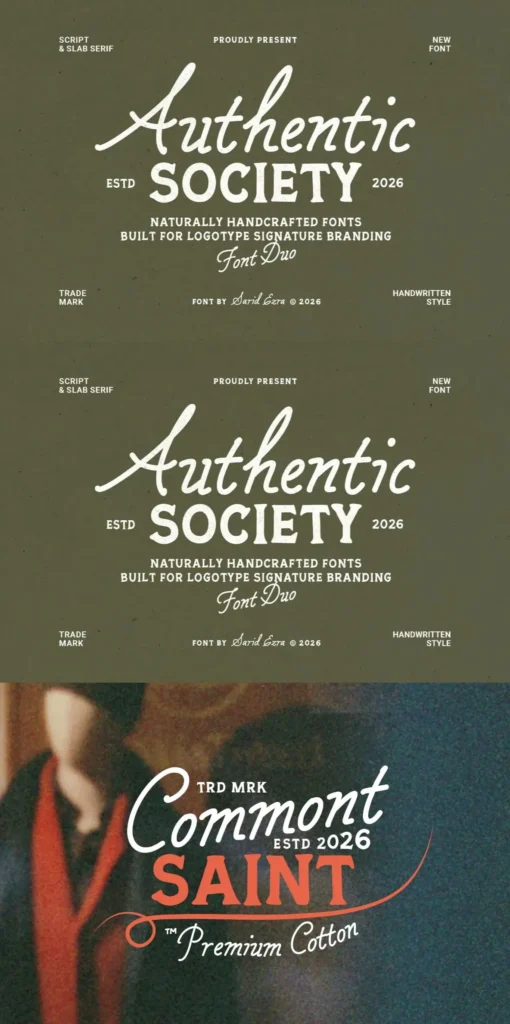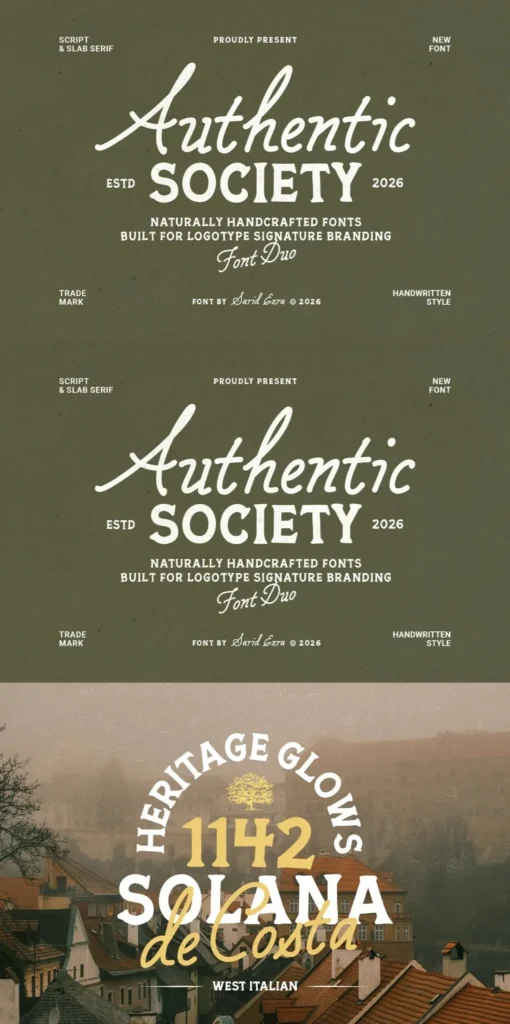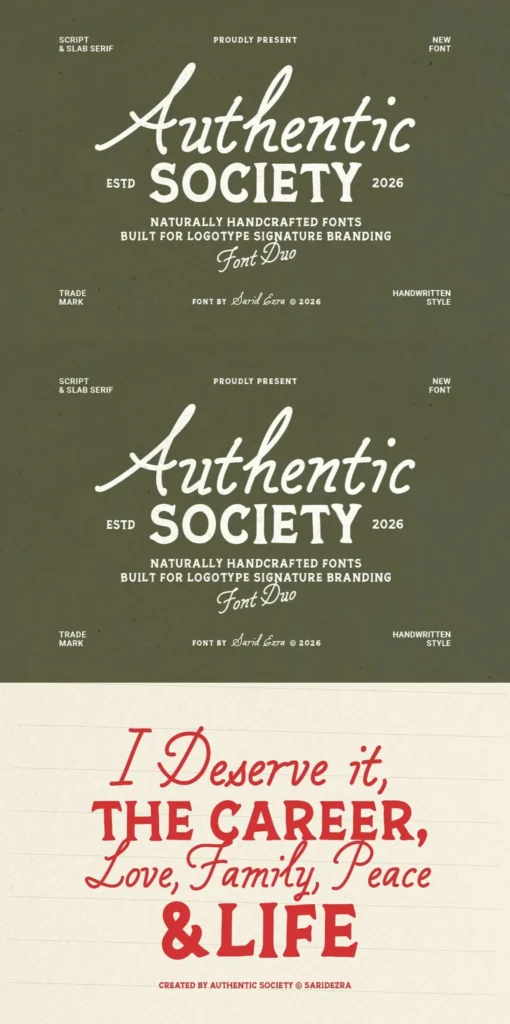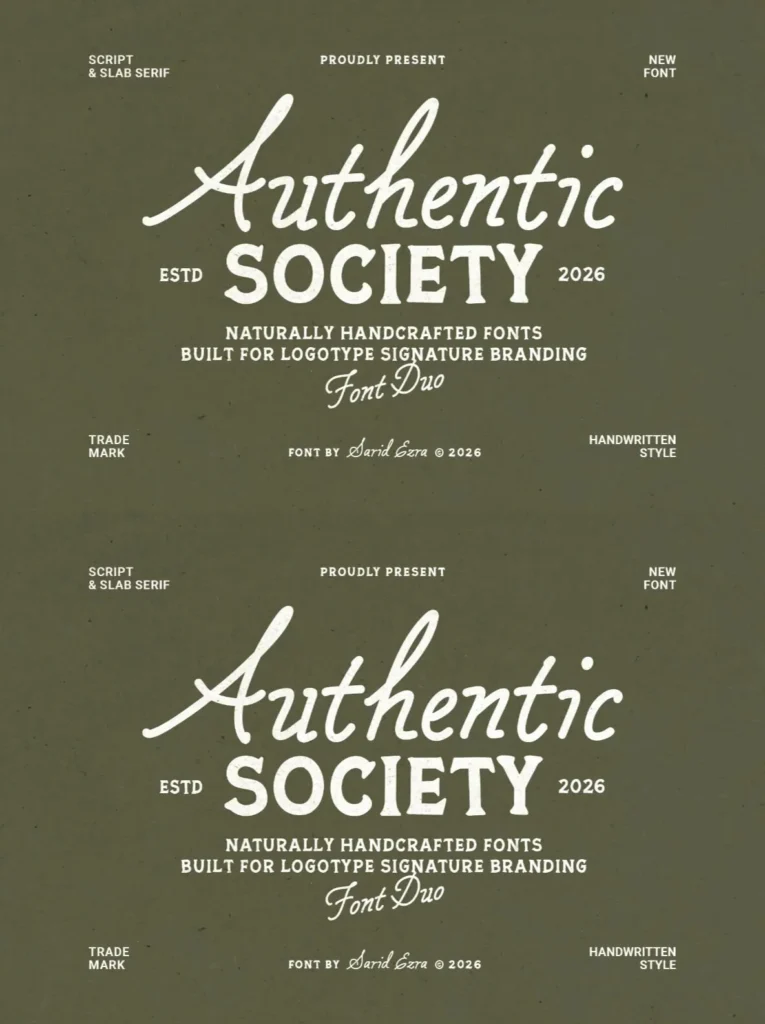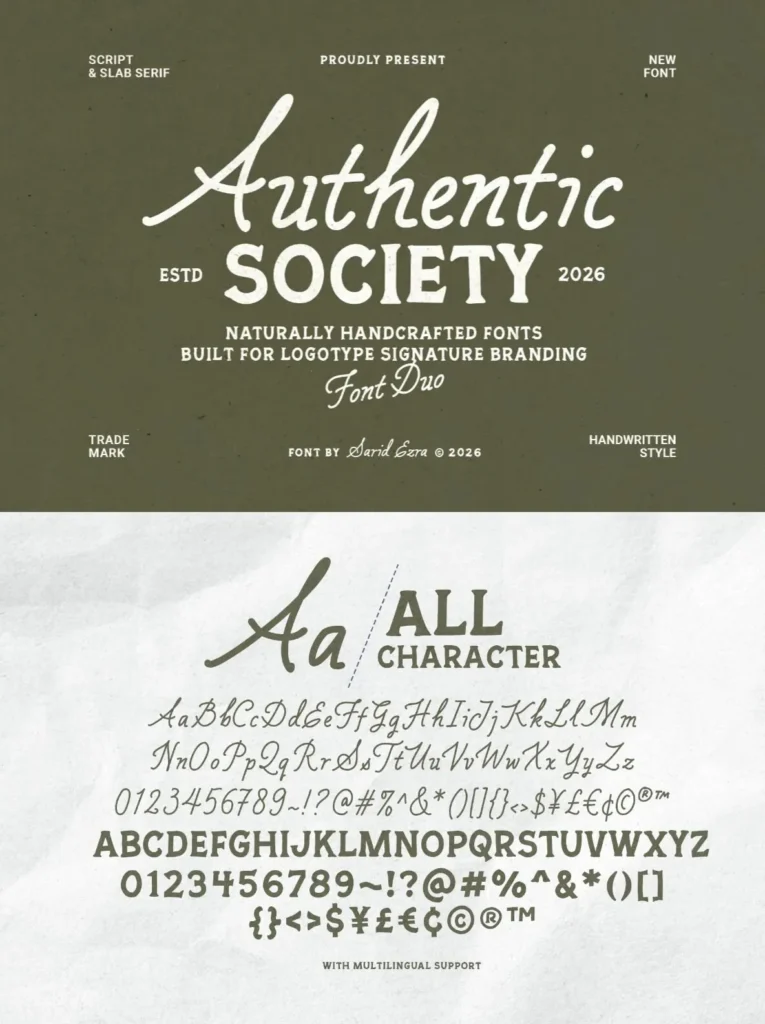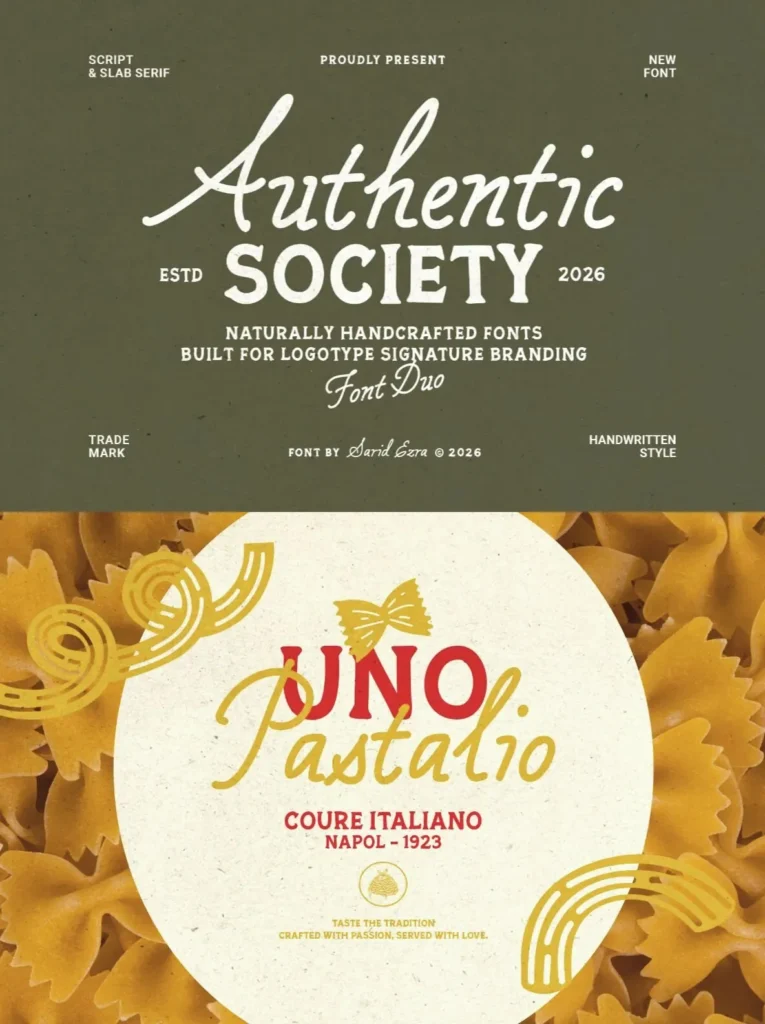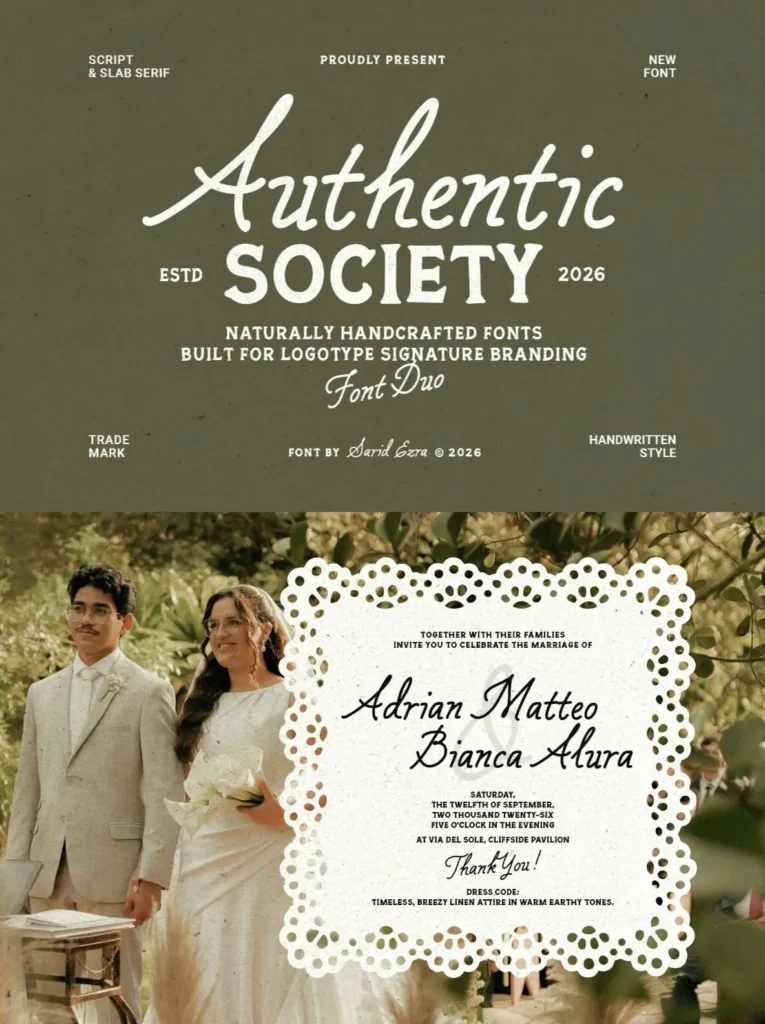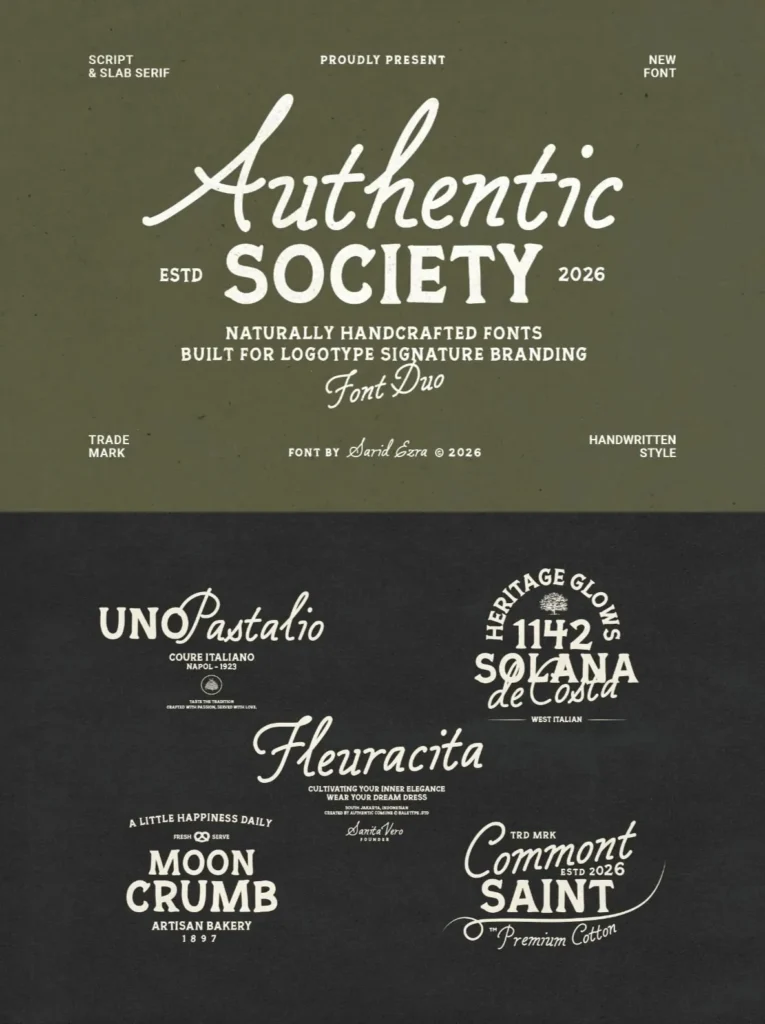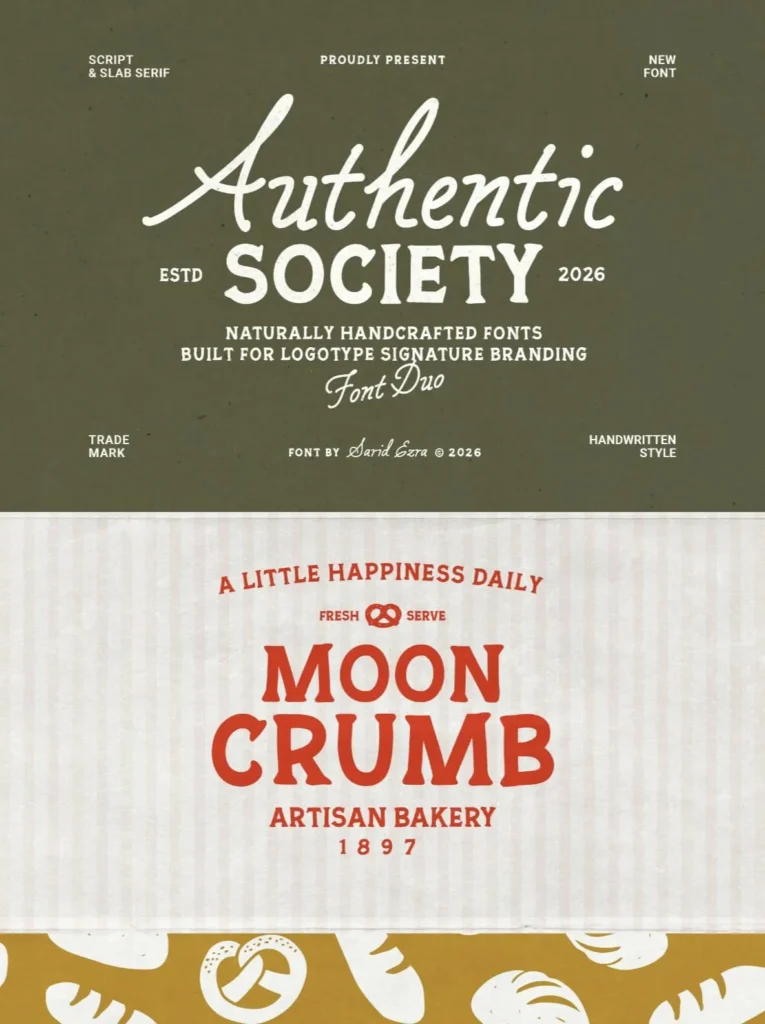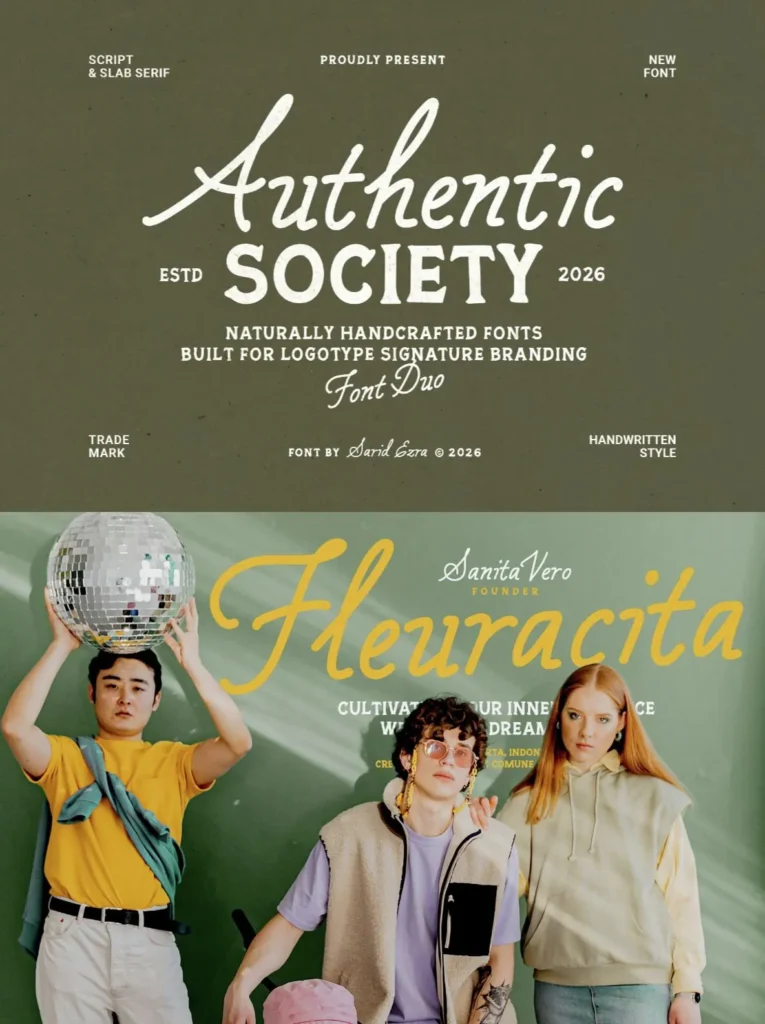
Authentic Society — Handwritten Logotype Warmth
Authentic Society is a handmade font duo designed for logotypes and expressive visual identities. It pairs a slab serif with a handwritten monoline script, giving designers two complementary styles for work that needs a natural, handcrafted feel.
Use this font duo for branding, logos, quotes, wedding invitations, and related design projects. Its informal texture and balanced pairing make it well suited to layouts that need warmth, personality, and a clearly handmade character. Authentic Society also supports multiple languages, making it practical for a wide range of typographic uses.